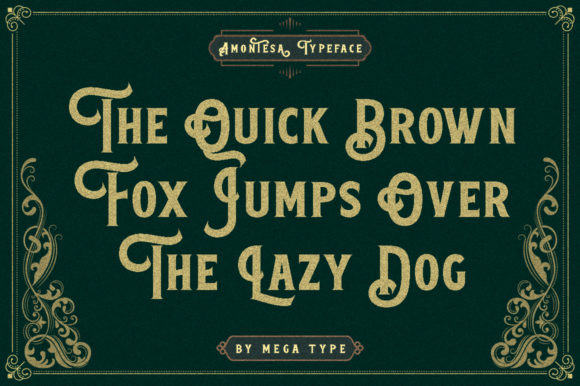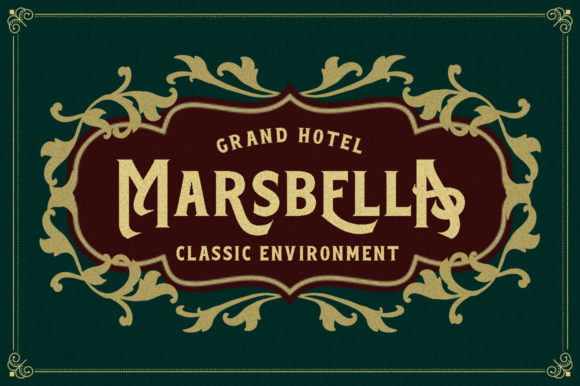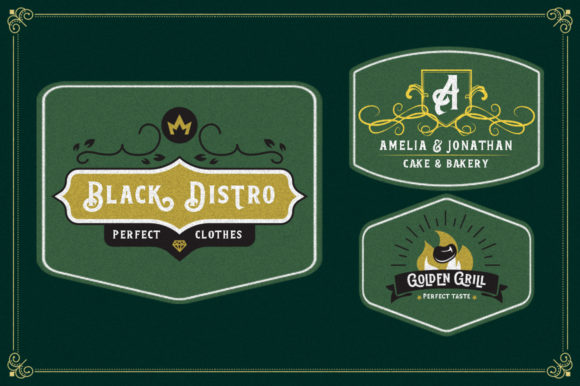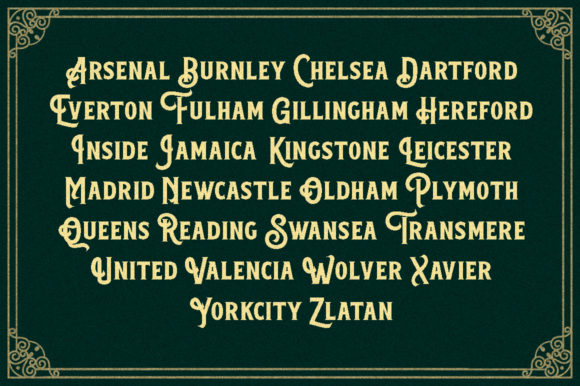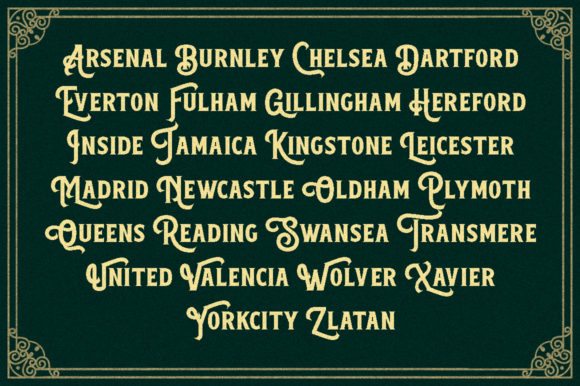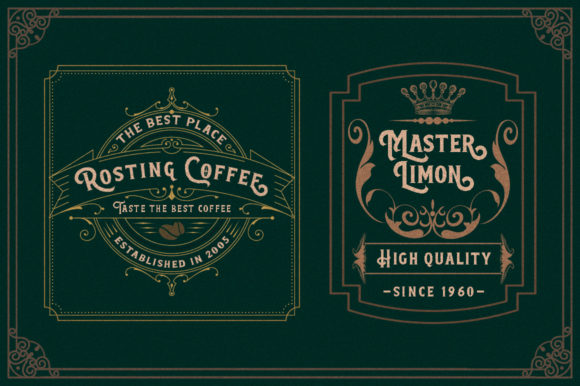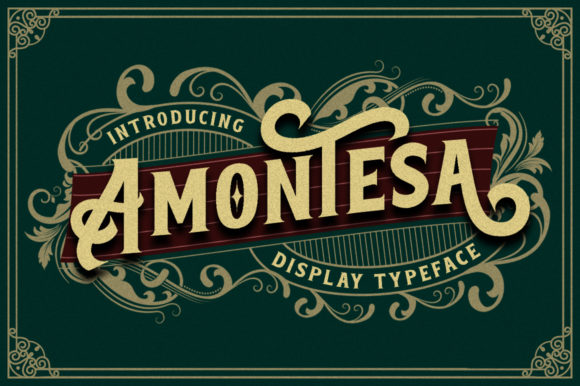
Introducing Amontesa Font: Elevate Your Designs with a Vintage Flair
Are you on the hunt for a font that exudes style, sophistication, and a touch of nostalgia? Look no further than Amontesa Font, a stunning vintage-styled display font that’s perfect for fashion branding, editorial designs, and a wide range of creative projects. With its smooth curves, bold appearance, and exceptional readability, Amontesa is sure to become your go-to font for making a lasting impression.
The Characteristics of Amontesa Font
So, what makes Amontesa Font stand out from the crowd? Here are just a few of its key characteristics:
- Readable: Despite its bold and stylish appearance, Amontesa Font remains highly readable, even at smaller sizes. This makes it an excellent choice for body text, headings, and titles.
- Bold: Amontesa Font packs a punch with its confident and assertive appearance. Use it to draw attention, create emphasis, and add visual interest to your designs.
- Smooth Curves: One of the defining features of Amontesa Font is its smooth, flowing curves. These curves give the font a sense of elegance and sophistication, making it perfect for high-end fashion branding and editorial designs.
- Vintage Flair: Amontesa Font’s vintage-inspired design adds a touch of nostalgia and classic charm to your projects. Use it to evoke a sense of timelessness and heritage in your designs.
Perfect for Fashion Branding and Editorial Designs
Amontesa Font is specifically designed with fashion branding and editorial designs in mind. Its stylish appearance and smooth curves make it an excellent choice for:
- Fashion Logos: Use Amontesa Font to create a stunning logo that reflects your brand’s personality and style.
- Magazine Titles: Add a touch of sophistication to your magazine titles with Amontesa Font’s bold and elegant appearance.
- Editorial Headings: Use Amontesa Font to create eye-catching headings that draw readers in and add visual interest to your editorial content.
Why Choose Amontesa Font?
With so many fonts to choose from, why should you choose Amontesa Font for your next project? Here are just a few compelling reasons:
- Unique Style: Amontesa Font offers a unique and distinctive style that’s sure to set your designs apart from the crowd.
- Versatility: Amontesa Font is highly versatile and can be used for a wide range of projects, from fashion branding to editorial designs.
- Easy to Use: Amontesa Font is incredibly easy to use and can be easily integrated into your design workflow.
Tips for Using Amontesa Font
To get the most out of Amontesa Font, here are a few tips to keep in mind:
- Experiment with Sizes: Amontesa Font looks great at a wide range of sizes, from small body text to large display headings. Experiment with different sizes to find the perfect fit for your project.
- Pair with Other Fonts: Amontesa Font pairs beautifully with other fonts. Try pairing it with a clean sans-serif font for a striking contrast.
- Use it Confidently: Amontesa Font is a bold and assertive font that demands attention. Use it confidently and don’t be afraid to make a statement.
In conclusion, Amontesa Font is an exceptional vintage-styled display font that’s perfect for fashion branding, editorial designs, and a wide range of creative projects. With its smooth curves, bold appearance, and exceptional readability, Amontesa is sure to become your go-to font for making a lasting impression. So why wait? Add Amontesa Font to your projects today and experience the power of beautiful typography.